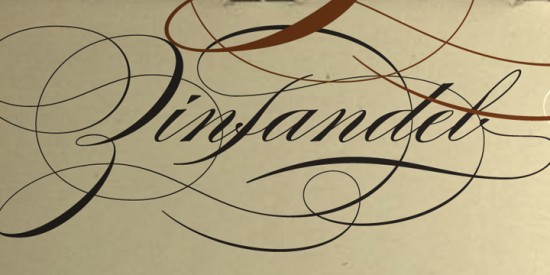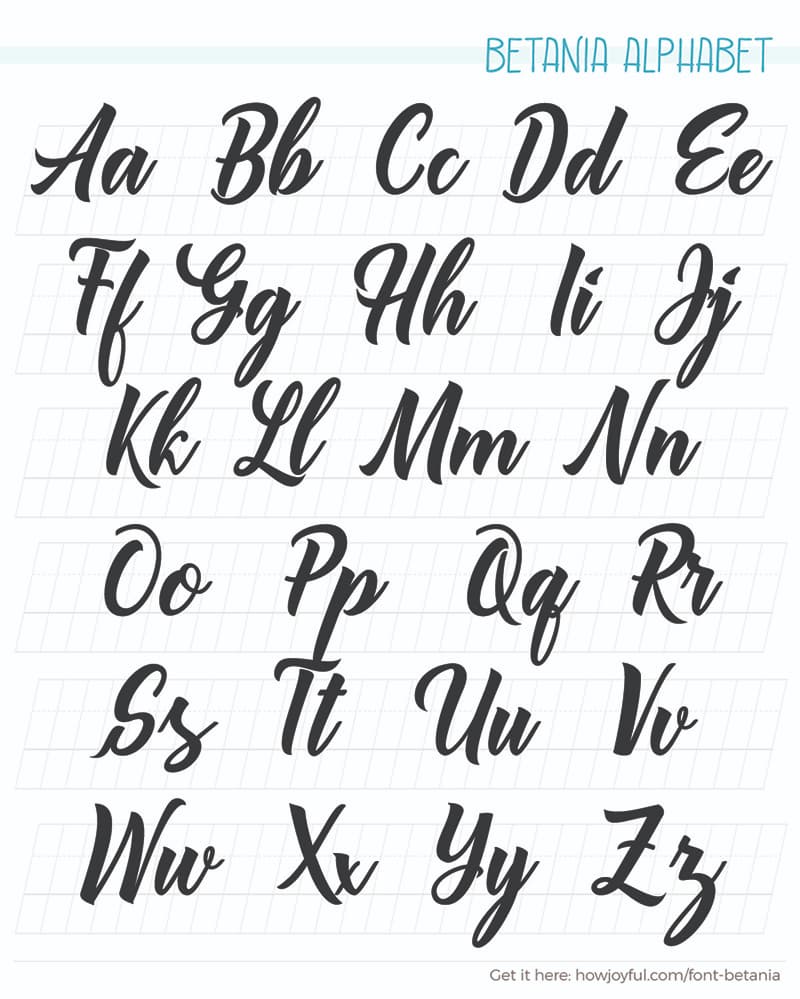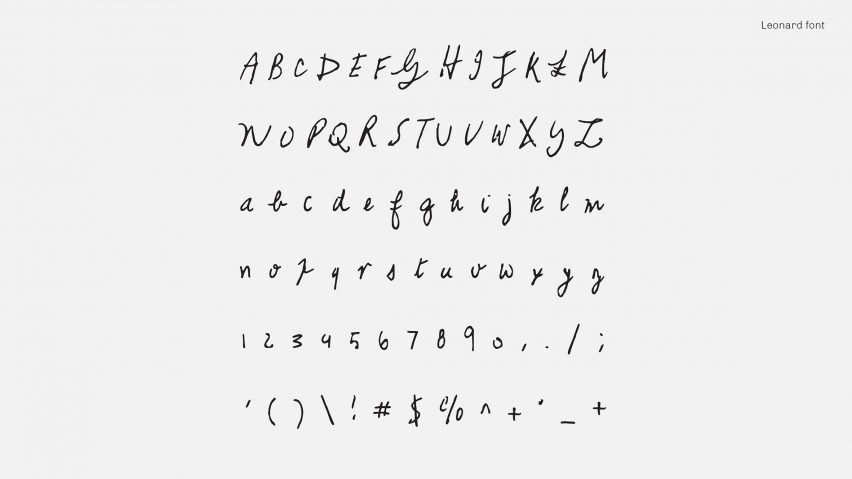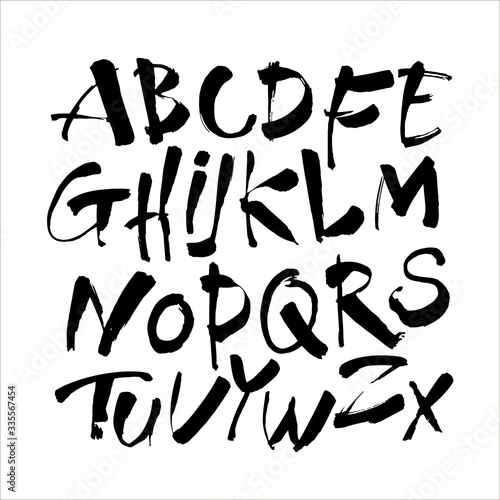
As the name implies its a transitional style in between old style and modernIt first became common around the mid-18th century until the start of the 19th century. We have 98 free Fancy Calligraphy Fonts to offer for direct downloading 1001 Fonts is your favorite site for free fonts since 2001.
Calligraphy alphabet fonts styles. Lily of the Valley_Personal_Use by dcoxy - Greg Medina Category. See more ideas about fonts alphabet calligraphy fonts lettering fonts. Lamar pen is a stunning calligraphy font designed by Mirabeau Buonaparte Lamar is a fascinating style with words combining in an elegant and stylish way.
Lily of the Valley_Personal_Use. Calligraphy alphabets from a to z letters in black in over 15 styles and samples which include uppercase and lowercase styles Gothic Stencils Cursive Romantic Roman and more. Calypsoka by Octotype Category.
You can also choose custom font and background colors. It usually involves a nibbed pen or brush. Calligraphy Wicked Font Styles Alfabeto Completo wicked fonts font cockney illustration dafont xerographer fontsme calligraphy chicano wicked letters graffiti fonts lettering tattoo styles cholo alphabet script typography arabic inspiration cursive tatoo butterfly fonts lettering tattoo alphabet behance font hydro74 chicano styles wicked script graffiti joshua gangster brush letters.
This font has an appealing calligraphy style and was designed and released by Reyrey Blue. Download and install these on your PC and you can start typing Calligraphy Alphabet Letters immediately on your computer. The main sub-styles are traditional calligraphy and modern calligraphy.
See more ideas about lettering fonts lettering alphabet calligraphy fonts. With this Script font you can see from strokes that give a modern and challenging calligraphy style. The height of calligraphy was reached in the middle age where monks developed the narrow writing style called gothic allowing more words to fit on a single line as paper was expensive at the time.
This font is classy charming and casual. The old-style serifs have their origin in broad-nib calligraphyOld-style type is characterized by a lack of differences between thick and thin lines. With these elegant Calligraphy Fonts you can write letters make greetings cards or just simply experiment its up to you.
Calligraphy writing font writing styles. The writing is readable but is usually extravagant and embellished with flourishes. Chinese Jpn Arabic Mexican Roman Greek Russian Various.
Free printable calligraphy alphabet a to z styles and samples. Choose from Calligraphy letter themed fonts such as Aspire font Champignon font Hanfordscript font and Precious font. Jul 15 2020 - Explore Jagruti Gajeras board Calligraphy Fonts Alphabet followed by 148 people on Pinterest.
Elisabeth Raelyn font is an attractive and beautiful calligraphy Handwriting font. Calligraphy is an ancient writing technique using flat edged pens to create artistic lettering using thick and thin lines depending on the direction of the stroke. This style can end up looking very similar to hand-lettered fonts but the difference is that calligraphy is written and not drawn.
Nelson the scriptina pro is a beautiful font crafted to fit any design layout. Latest fonts Popular this month Popular all time Alphabetically. A lovely calligraphy font redesigned by Fredrick Nader and Roger S.
Dec 2 2020 - Explore Manishas board Calligraphy fonts alphabet on Pinterest. Calligraphy is an artistic writing style where the pressure is varied to create thick and thin lines all in a single stroke. The support for all of these unicode letters is growing every day so in a couple of months you might find that theyll be visible.